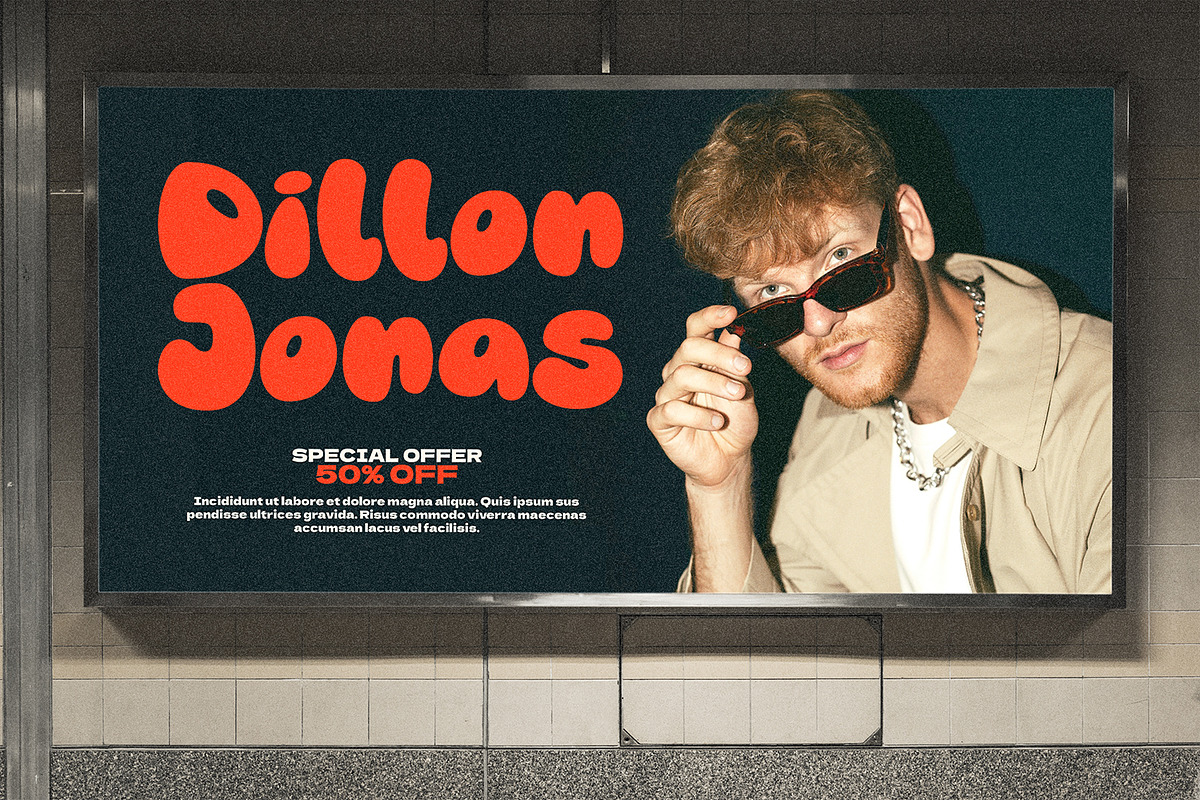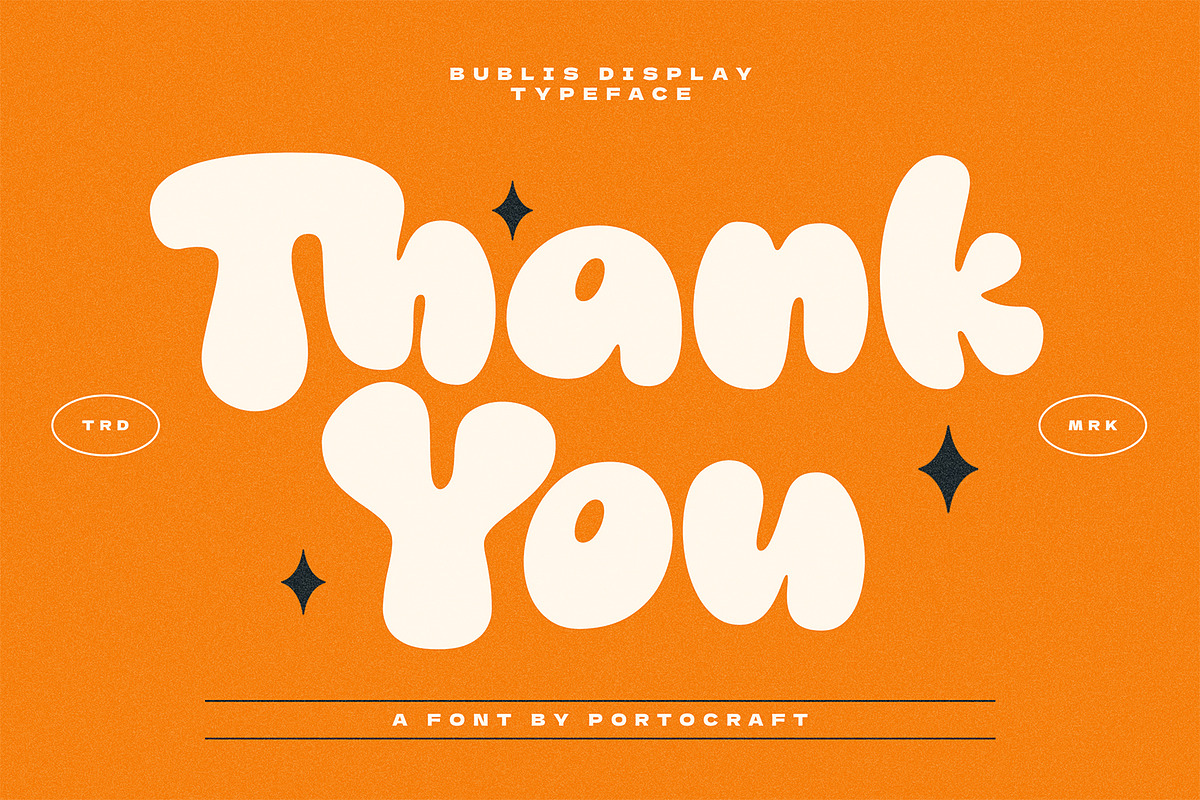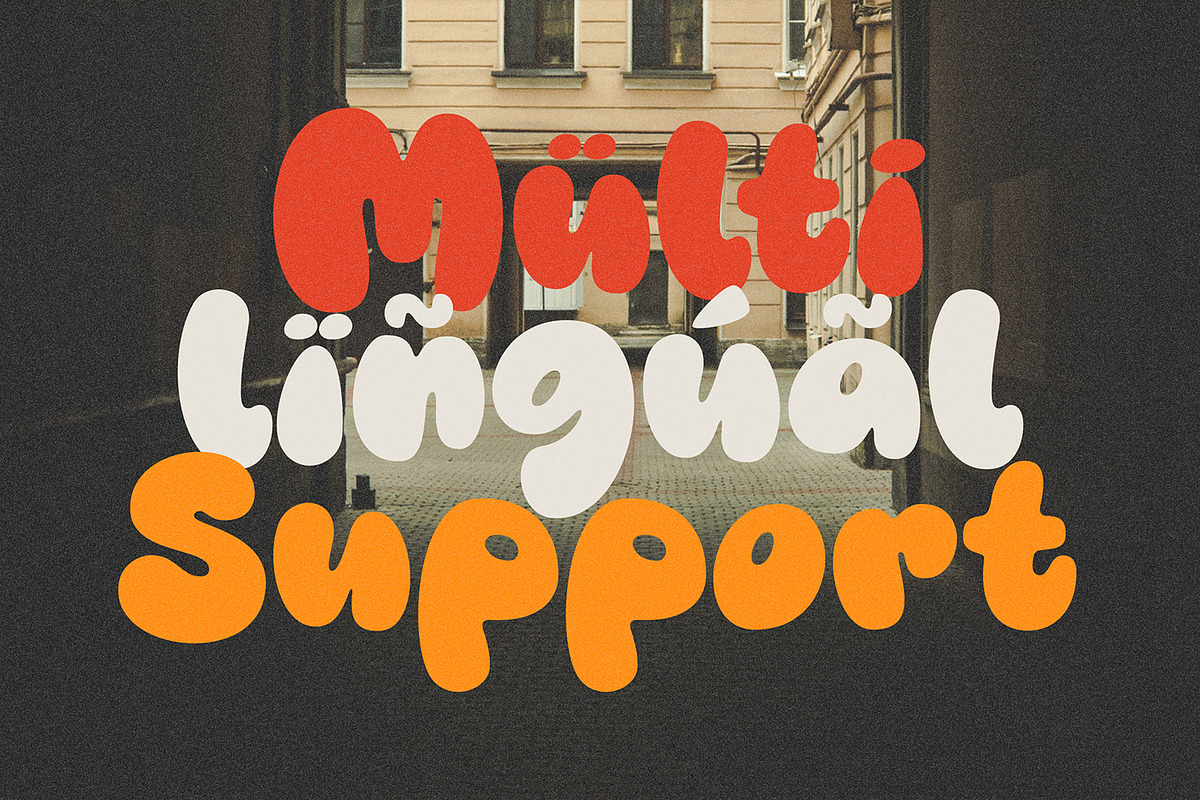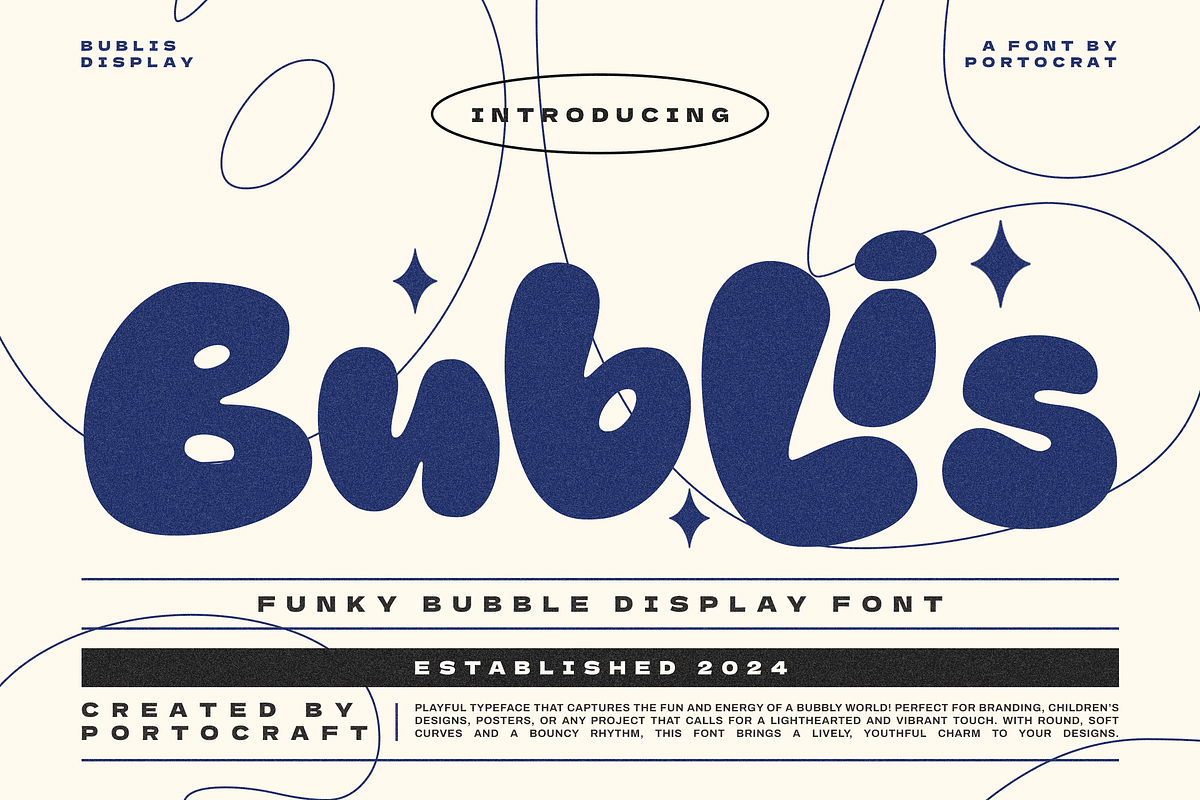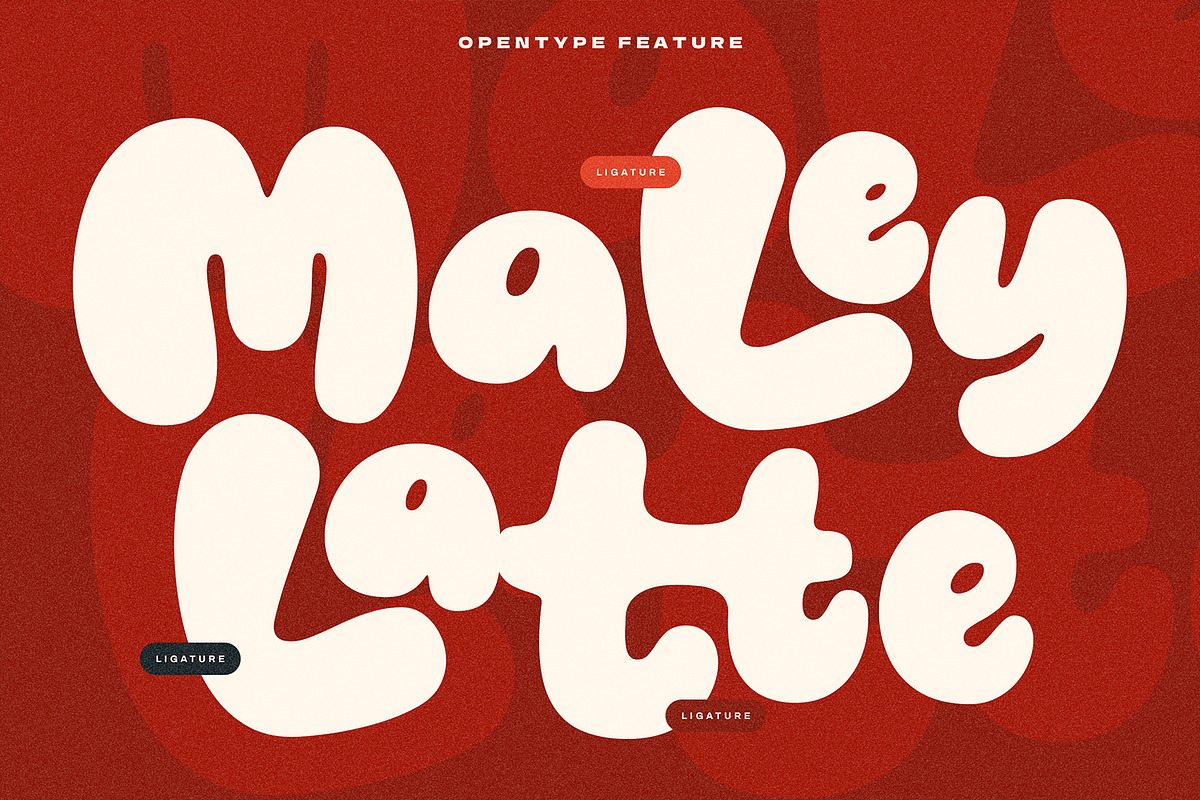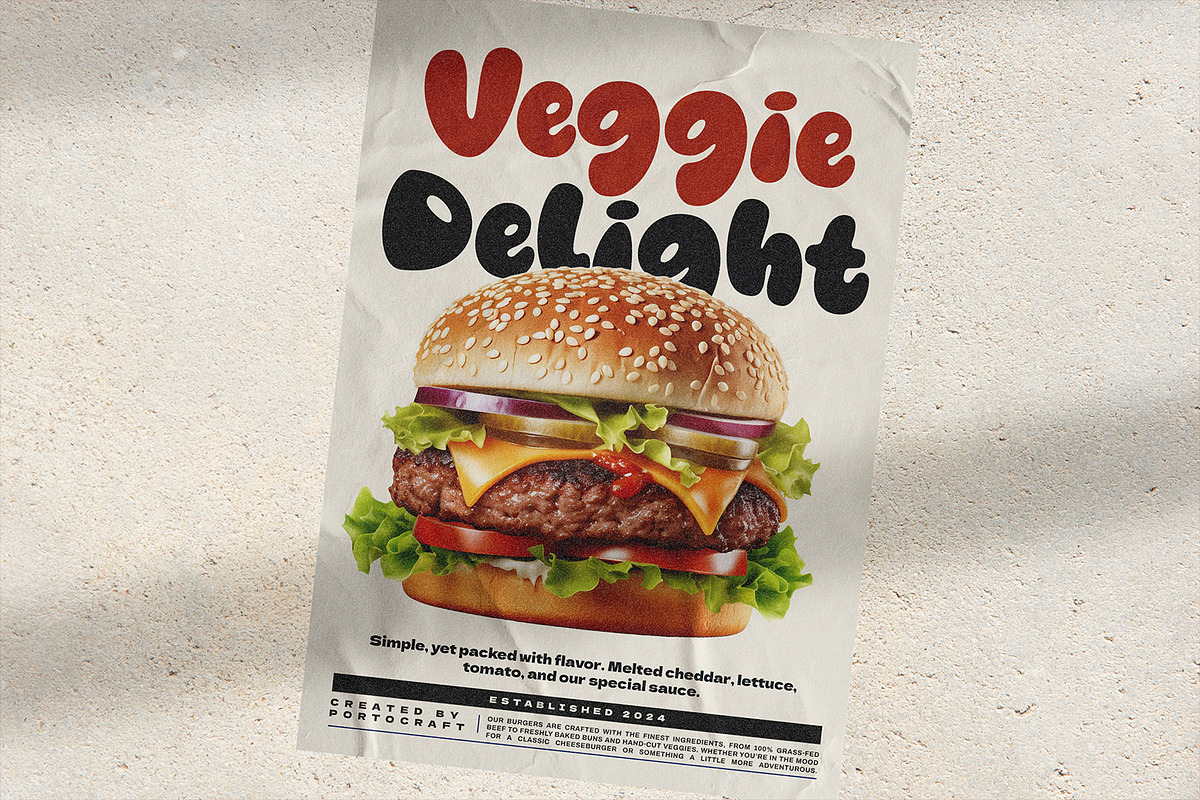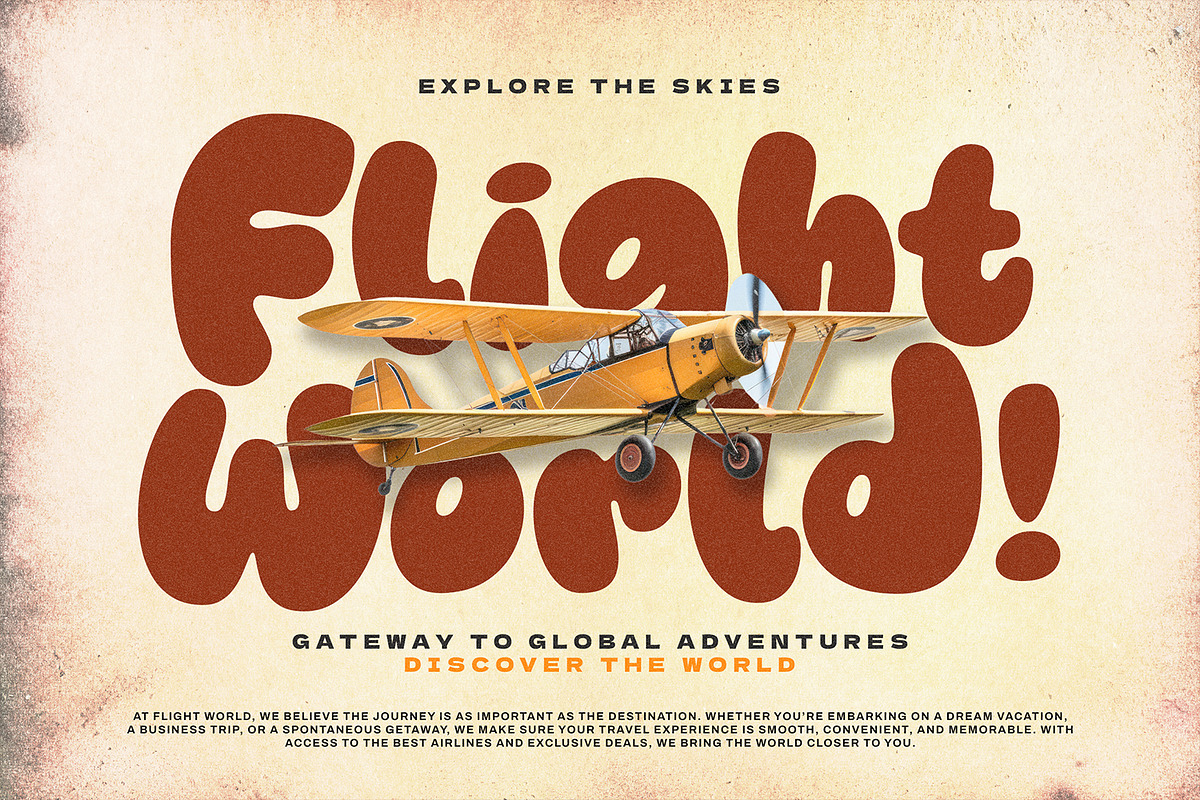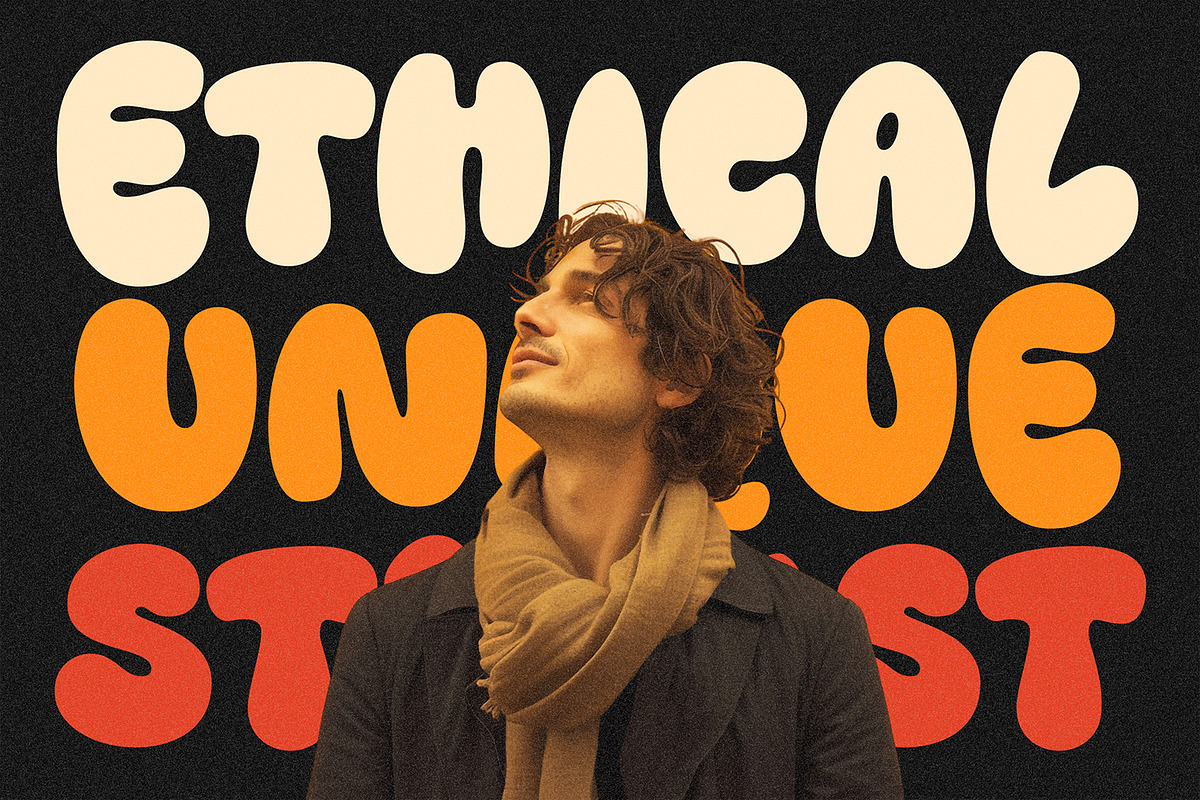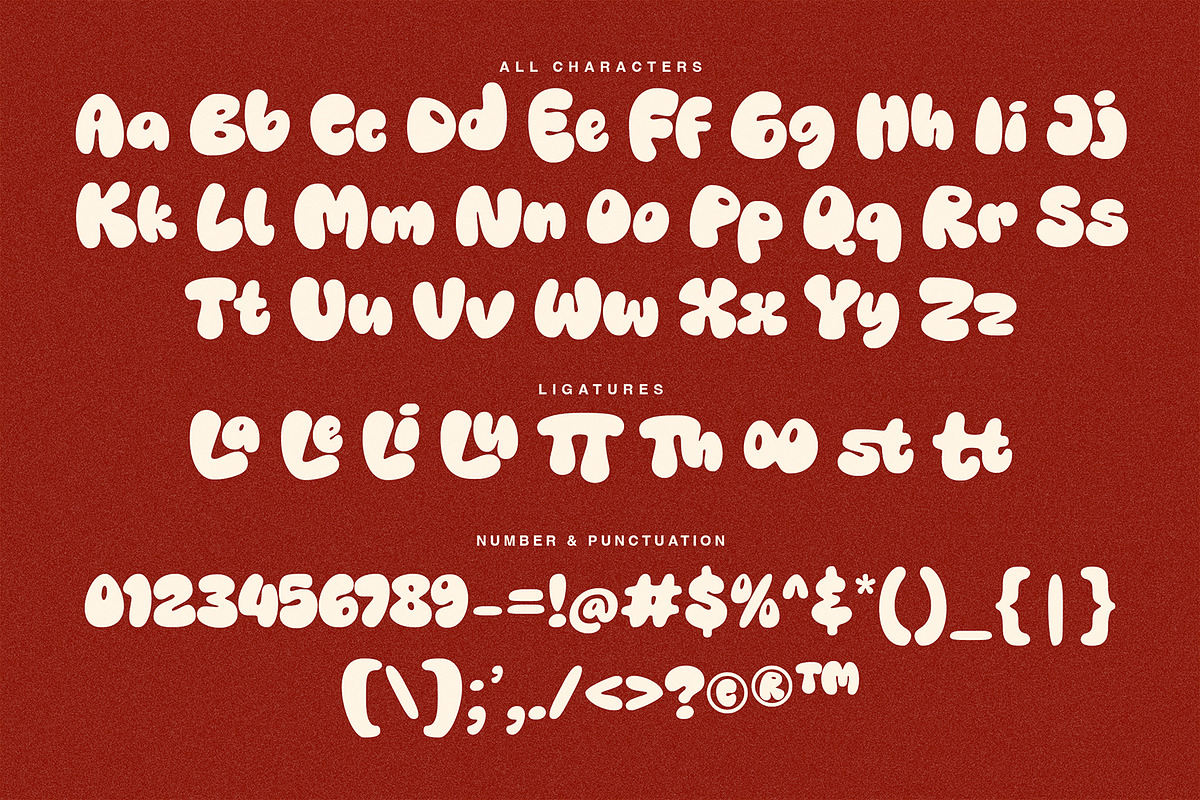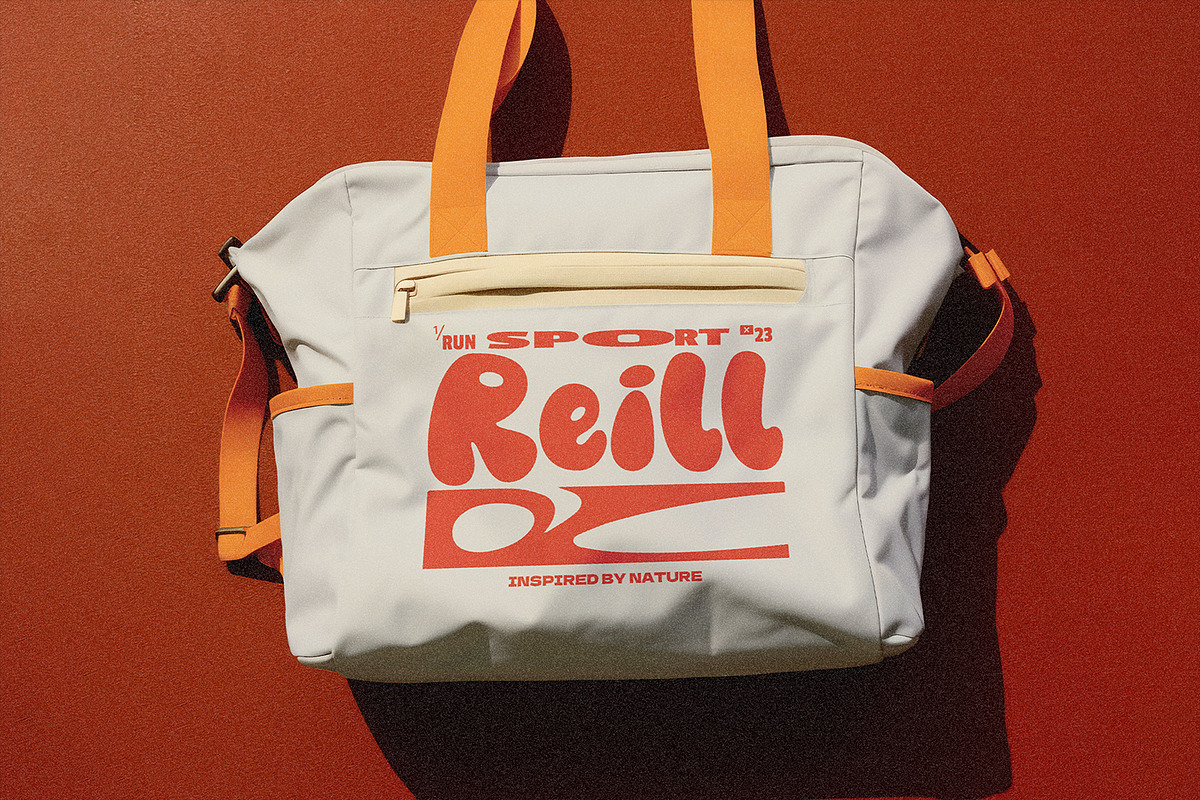
Bublis Funky Display
Bublis Funky Display is a stylish font It has both modern and retro look. Comes with alternatives and ligatures, helps to create stunning logos, quotes, posts, blog posts. branding projects, magazine imagery, wedding invitations, and much more.
- Unique Letterforms